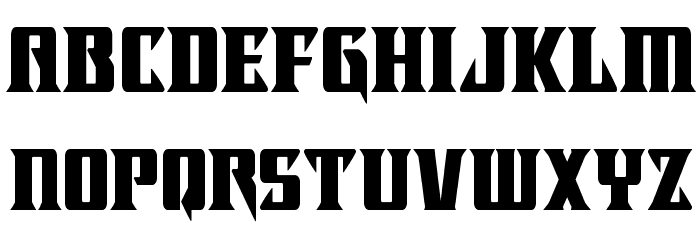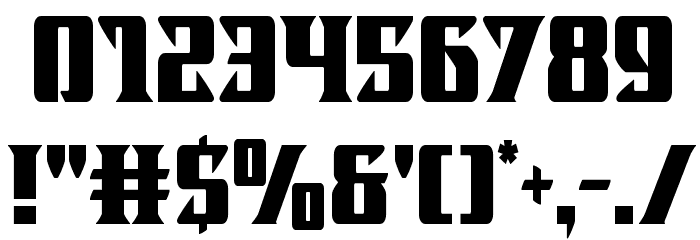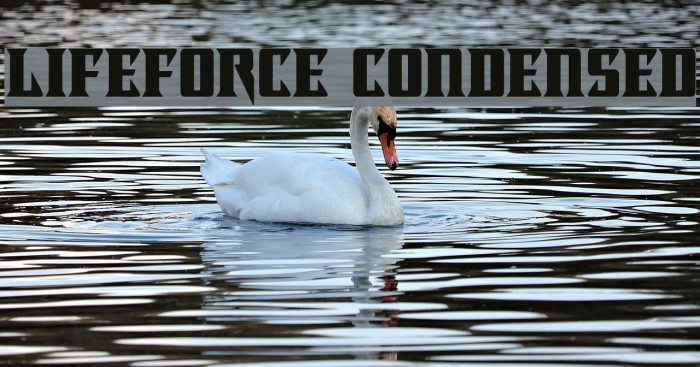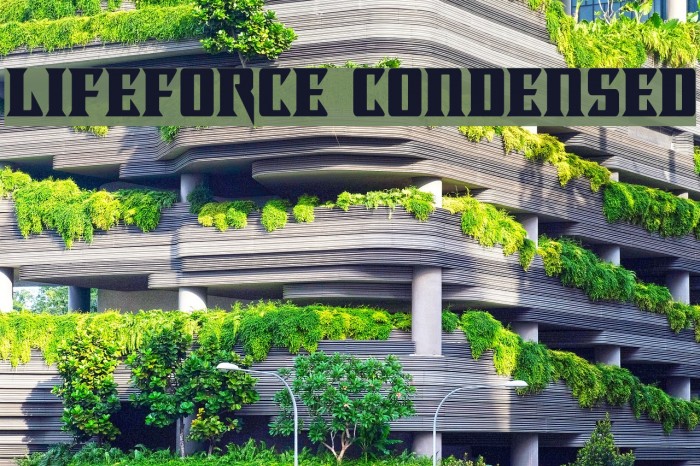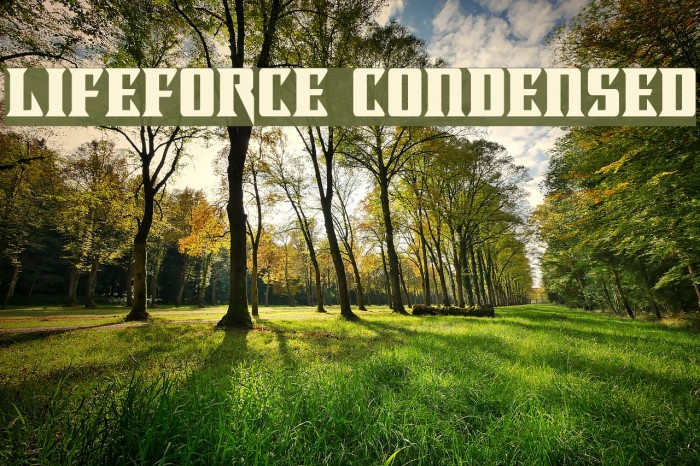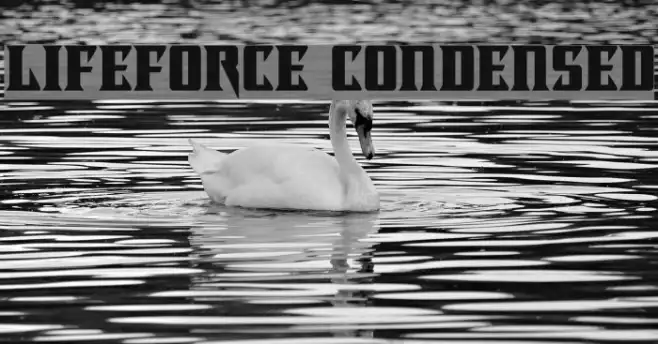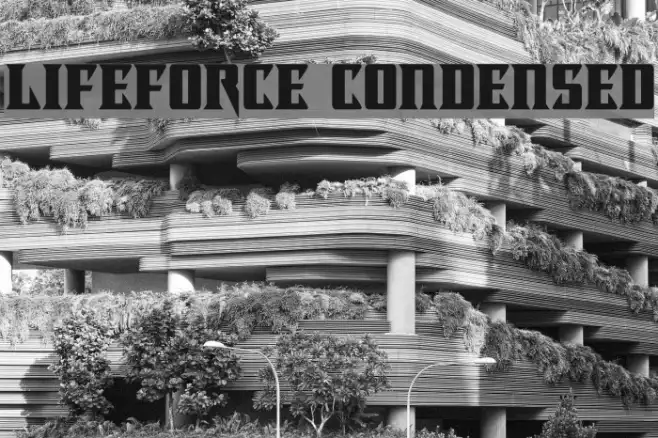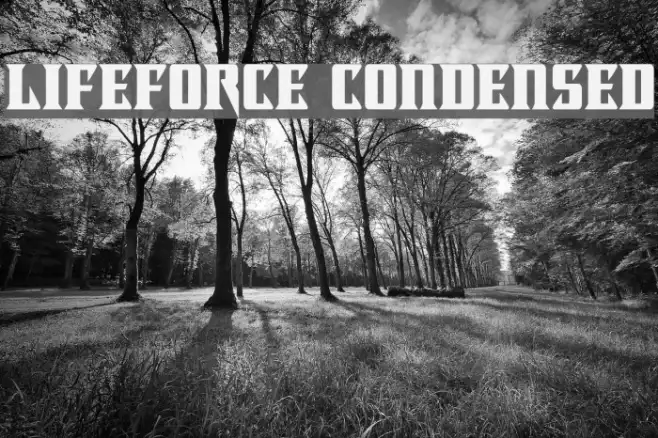
Lifeforce Condensed Font
This font features a bold and condensed style with sharp, angular edges and a strong geometric influence. The uppercase letters are particularly striking, with a blocky appearance that conveys strength and impact. The lowercase letters maintain the same boldness, ensuring consistency across the typeface. Numbers and special characters are designed with the same attention to detail, making them stand out in any design. The overall aesthetic is modern and assertive, suitable for projects that require a commanding presence.
A bold, condensed font with sharp, angular edges and a strong geometric style.
- Proposed Projects: Ideal for posters, logos, headlines, and branding materials that need a bold and impactful look.
- Character Spacing: Tight